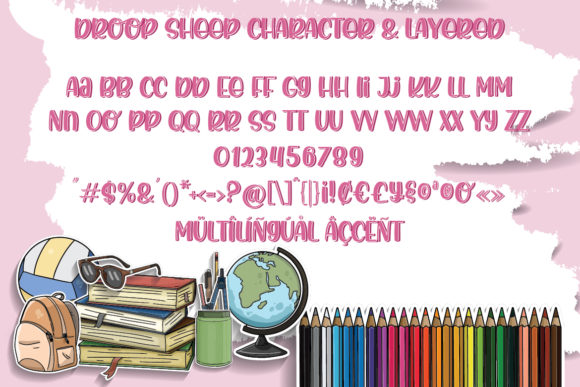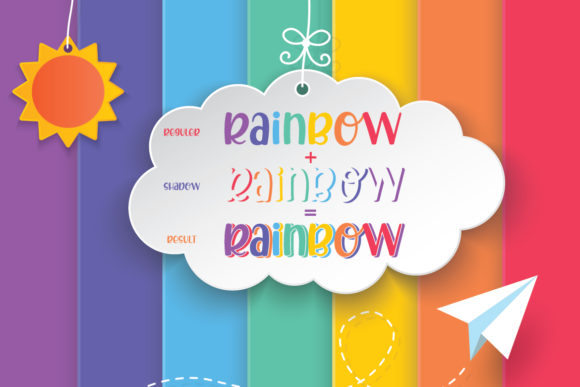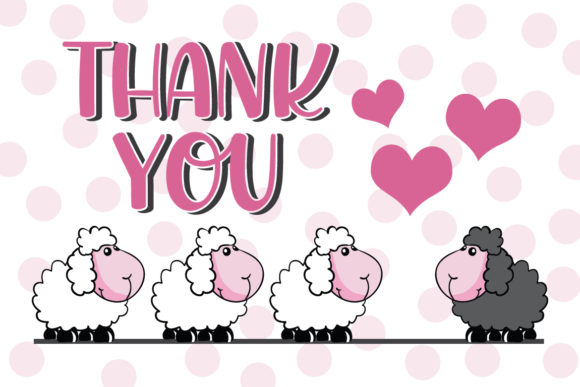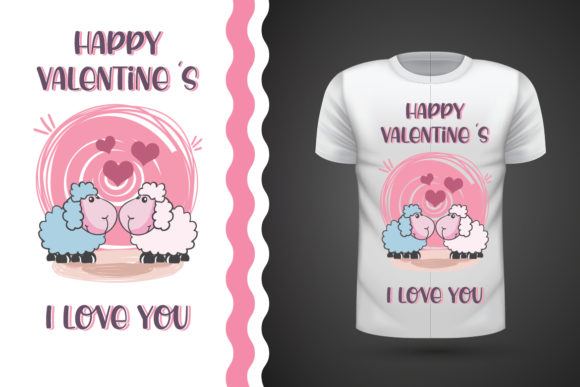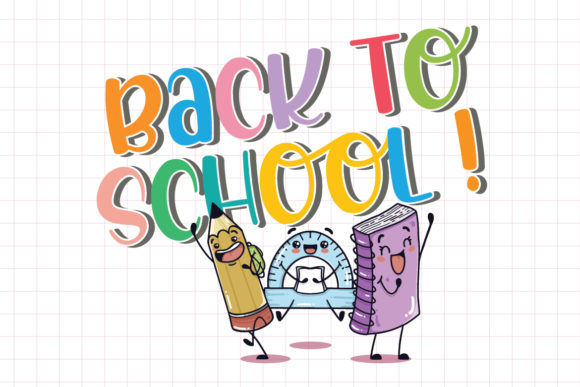
The Joy of Droop Sheep Font: A Fun and Playful Display Font
A Personal Review of Droop Sheep Font
So, what makes Droop Sheep Font so special? Let’s get into the good stuff! 😊
What I Love About Droop Sheep Font
- ✨ Playful and Cute Design: Droop Sheep Font is perfect for designs that need a fun and whimsical touch. Its unique letterforms and adorable sheep-inspired design make it a standout.
- 💥 Attention-Grabbing: Droop Sheep Font is a display font that demands attention. It’s perfect for headings, titles, and any design element that needs to pop.
While Droop Sheep Font is an amazing display font, there are a few things to keep in mind:
- 🤔 Limited Legibility: As with many display fonts, Droop Sheep Font may not be the best choice for body text or long paragraphs. It’s best used for headings and titles.
- ⚠️ Glyph Limitations: While Droop Sheep Font has a range of glyphs and OpenType features, it may not have the full range of characters and symbols that some users need.
The Backstory of Droop Sheep Font
Droop Sheep Font was designed by a talented font designer who wanted to create a font that would bring a smile to people’s faces. Inspired by the playful and adorable nature of sheep, this font was born. With its unique letterforms and whimsical design, Droop Sheep Font is sure to delight designers and non-designers alike.
| Font Name | Droop Sheep Font |
| Author | Almeera Studio |
| Q: What is Droop Sheep Font? | A: Droop Sheep Font is a fun and playful display font perfect for designs that need a whimsical touch. |